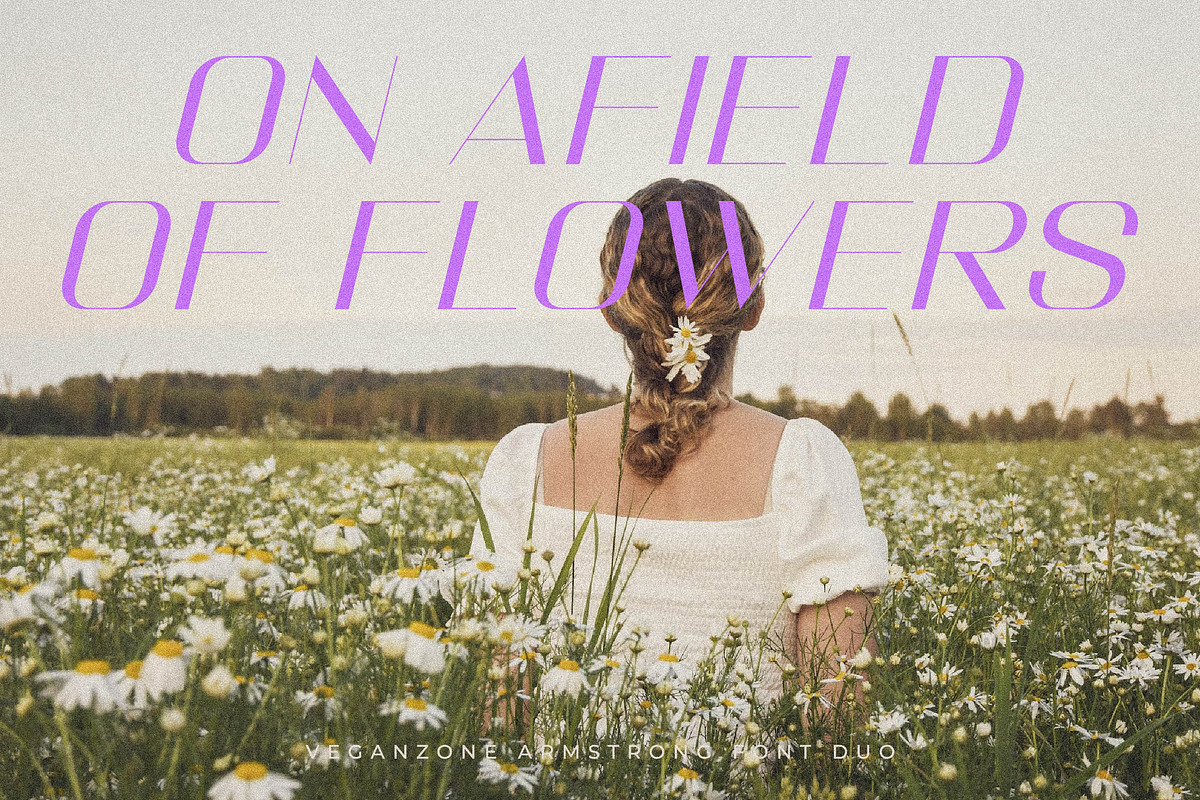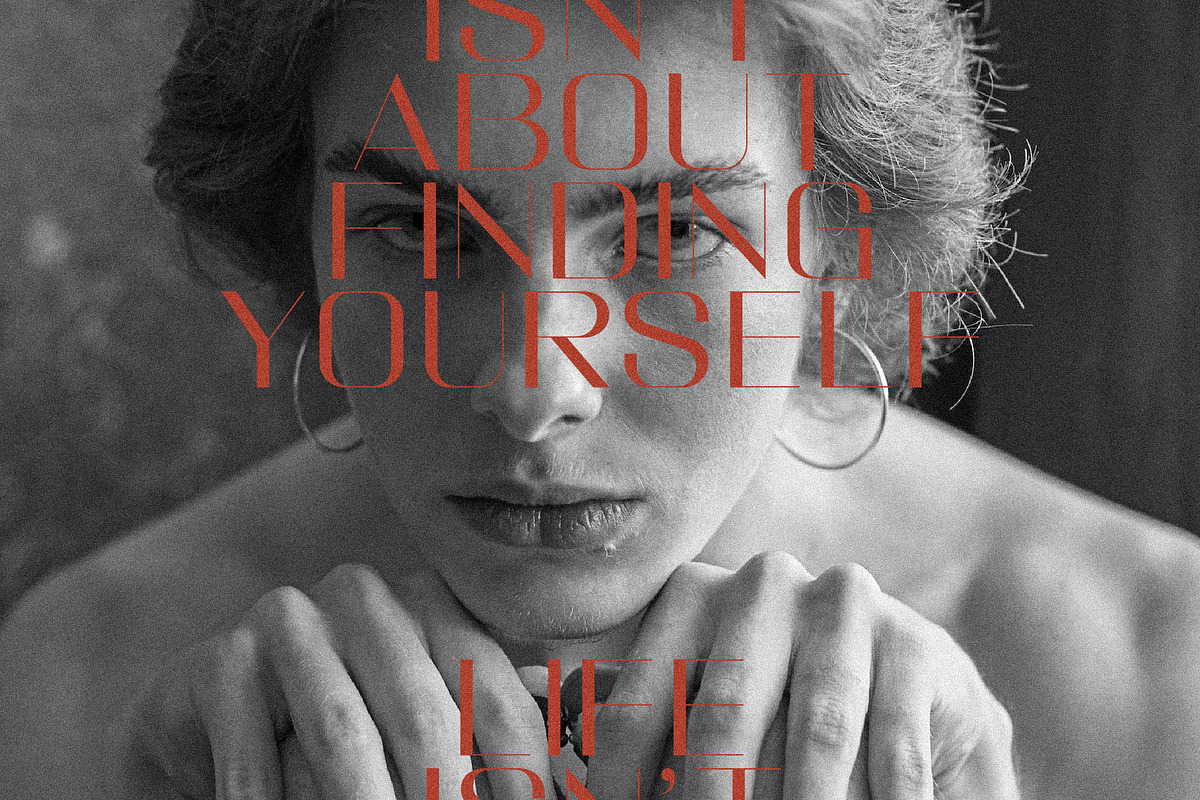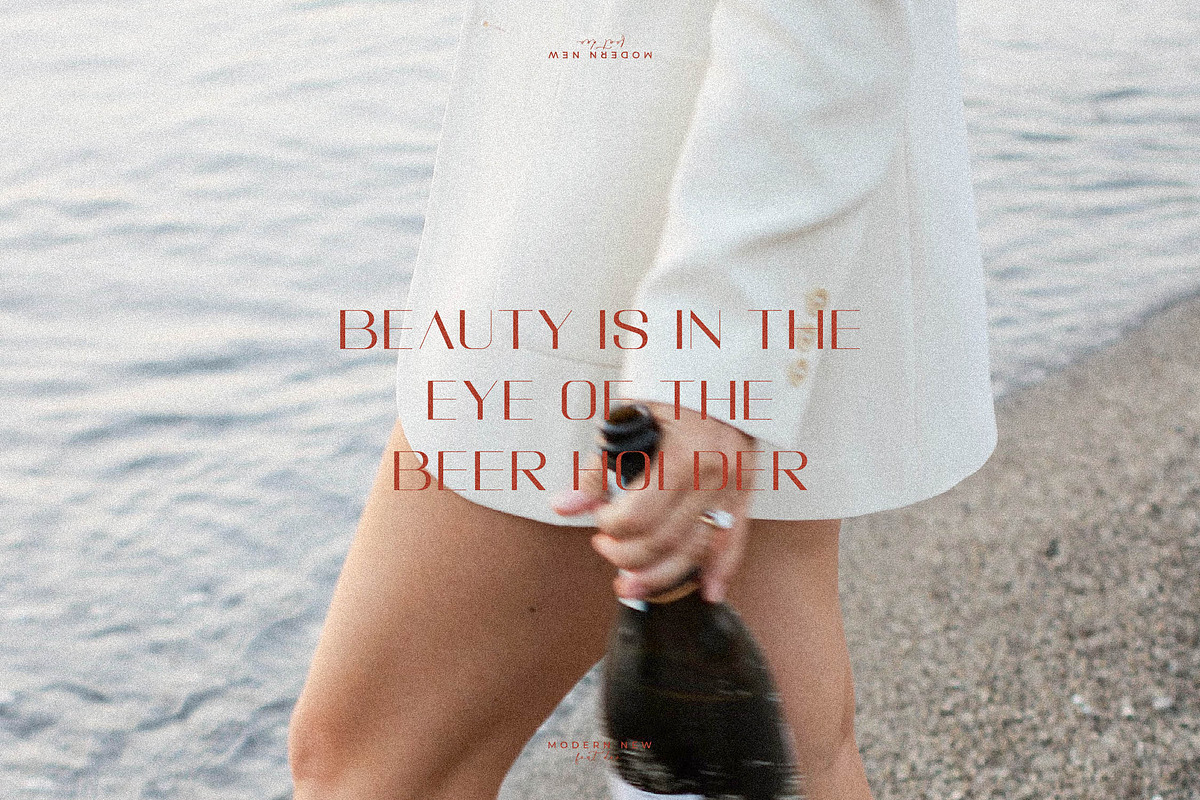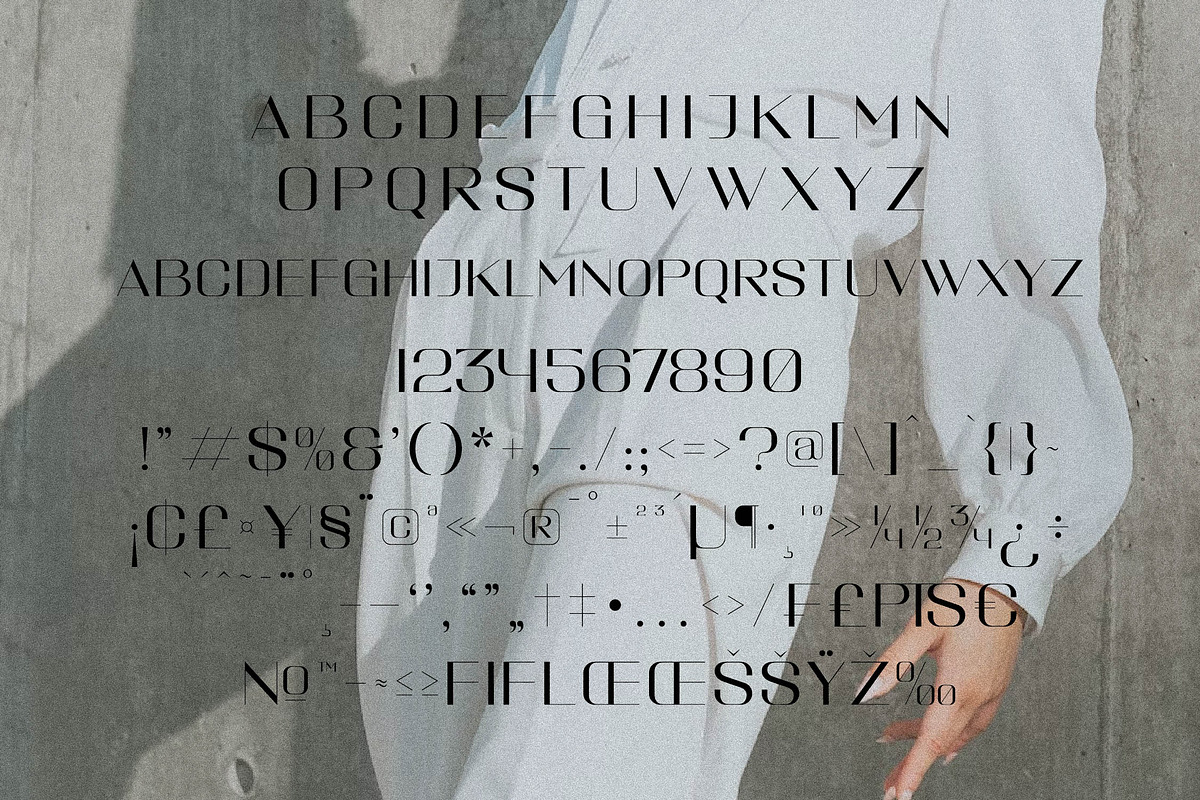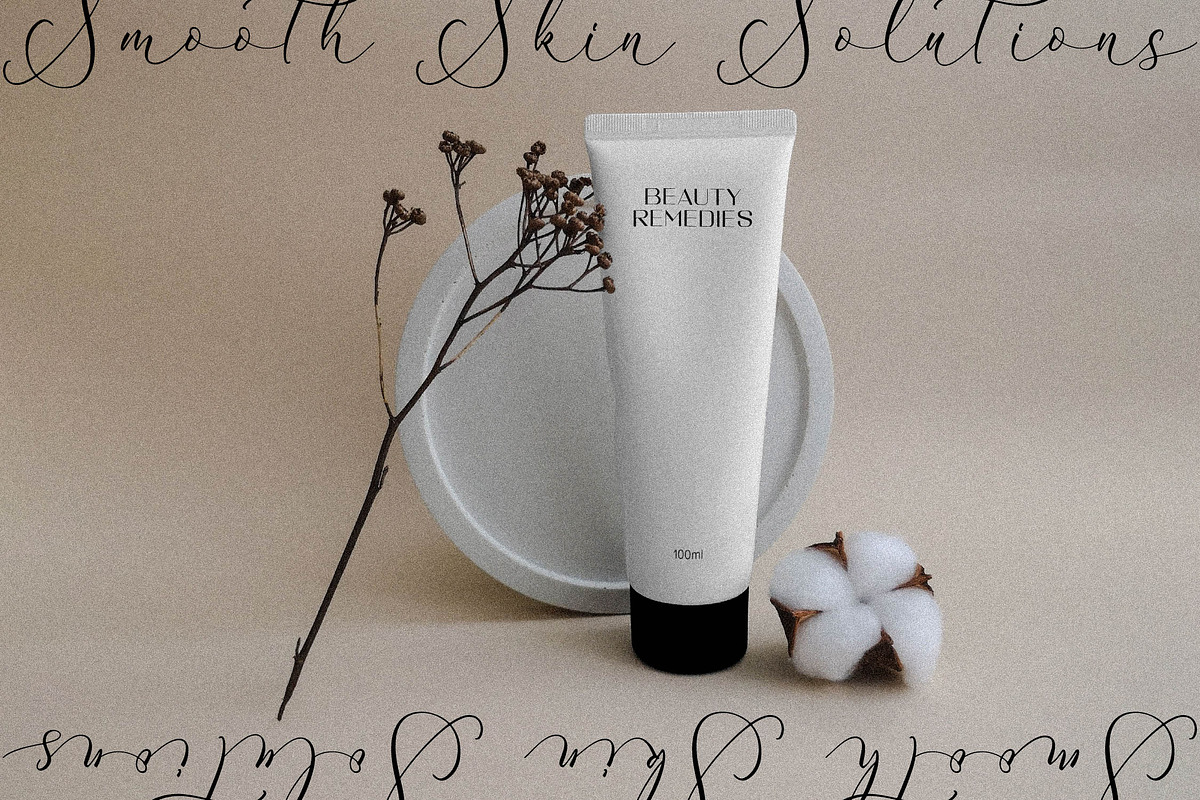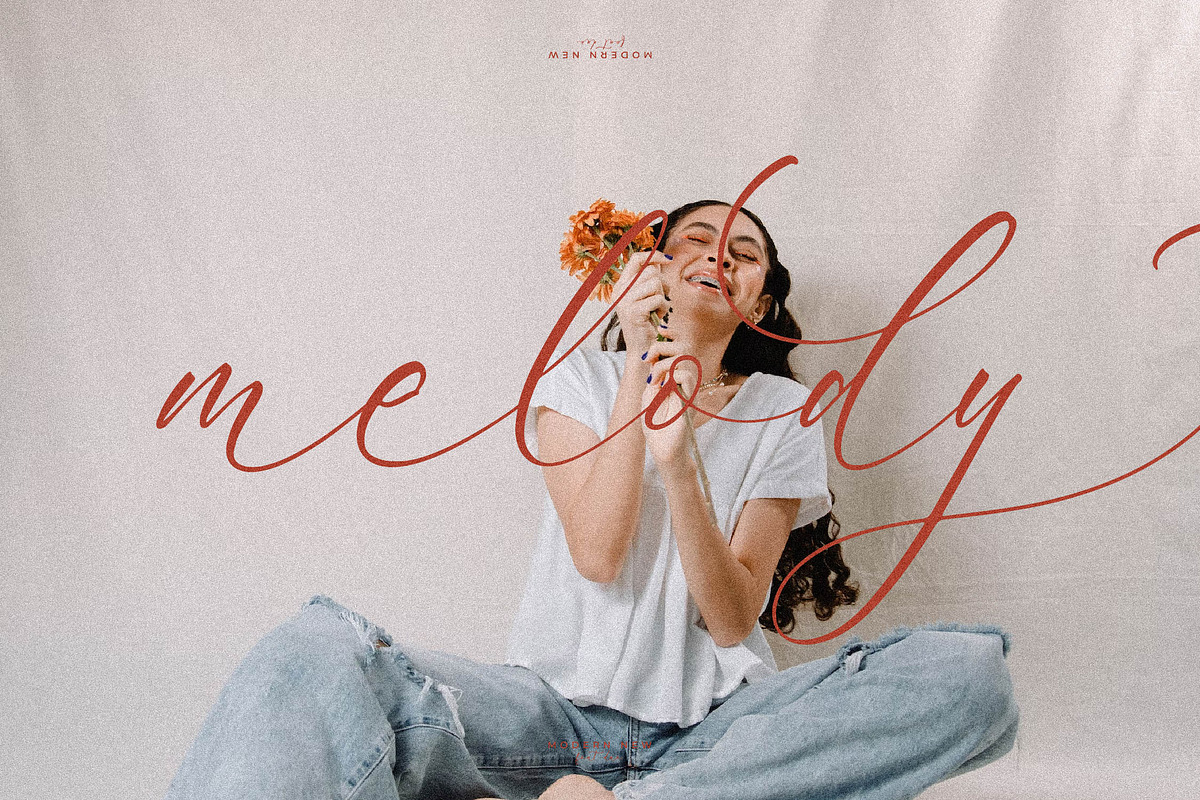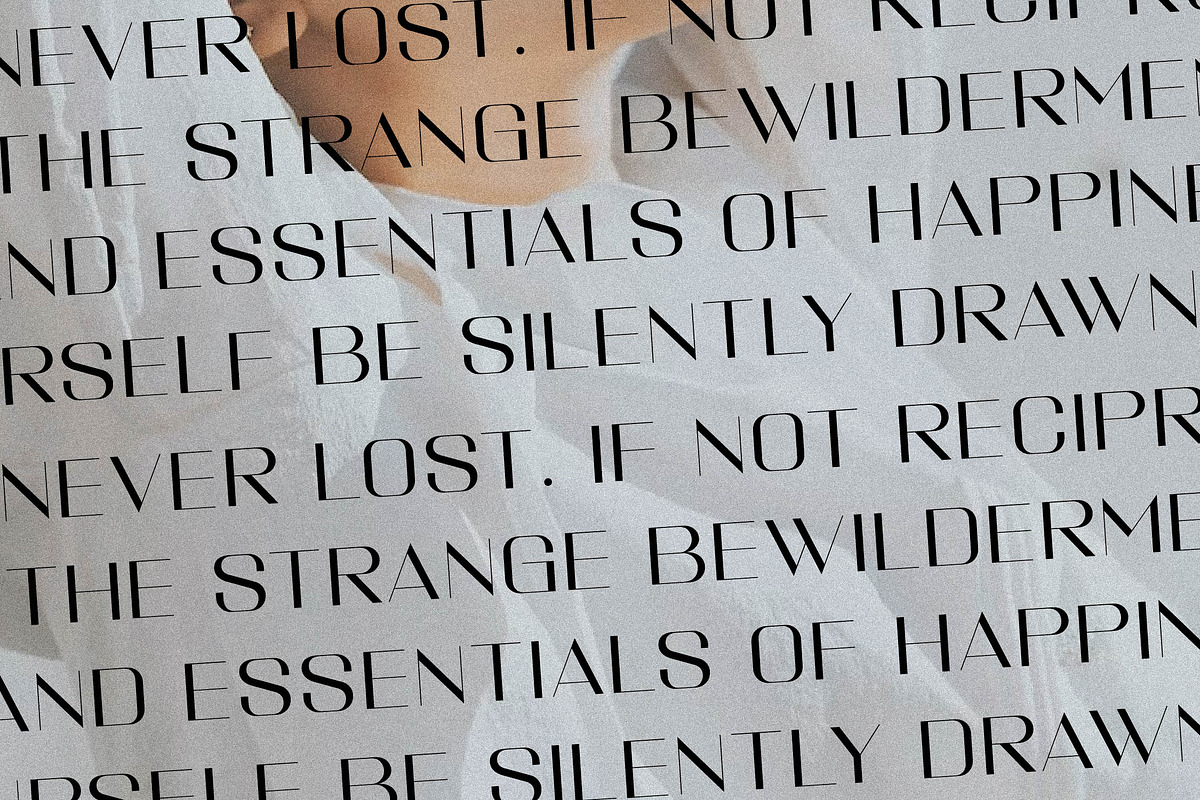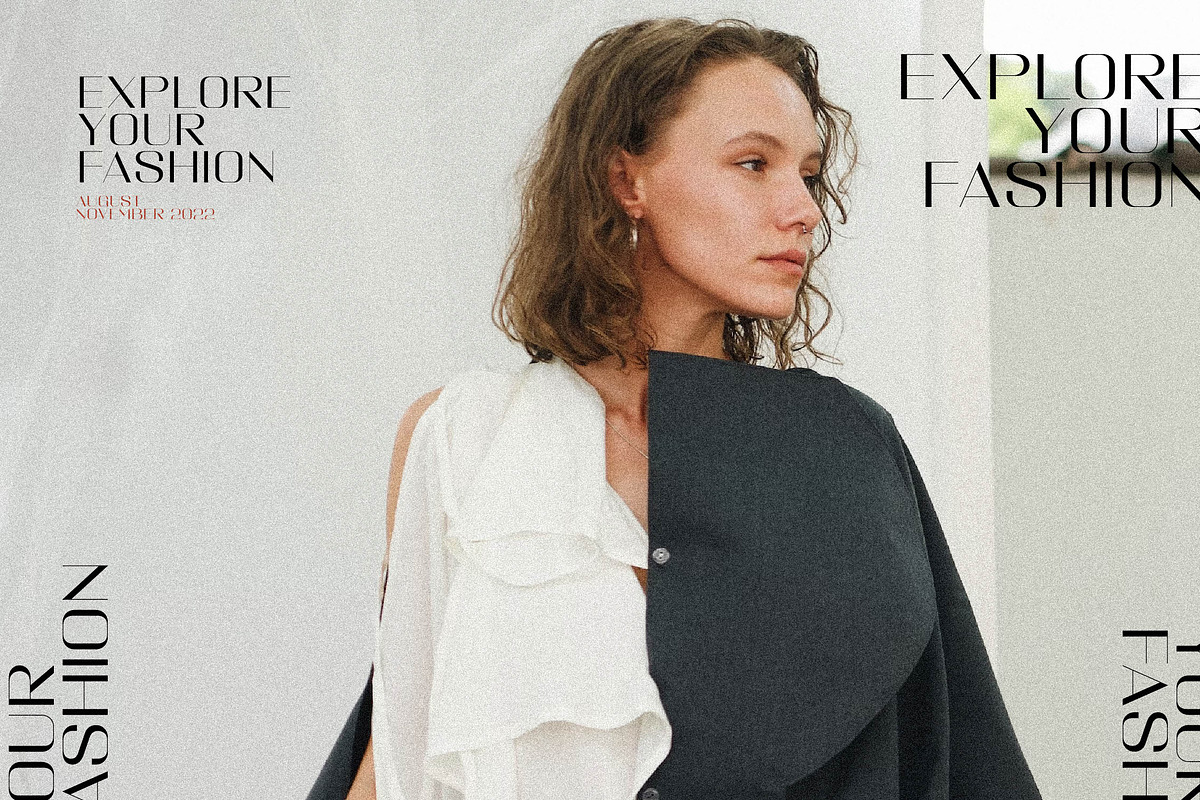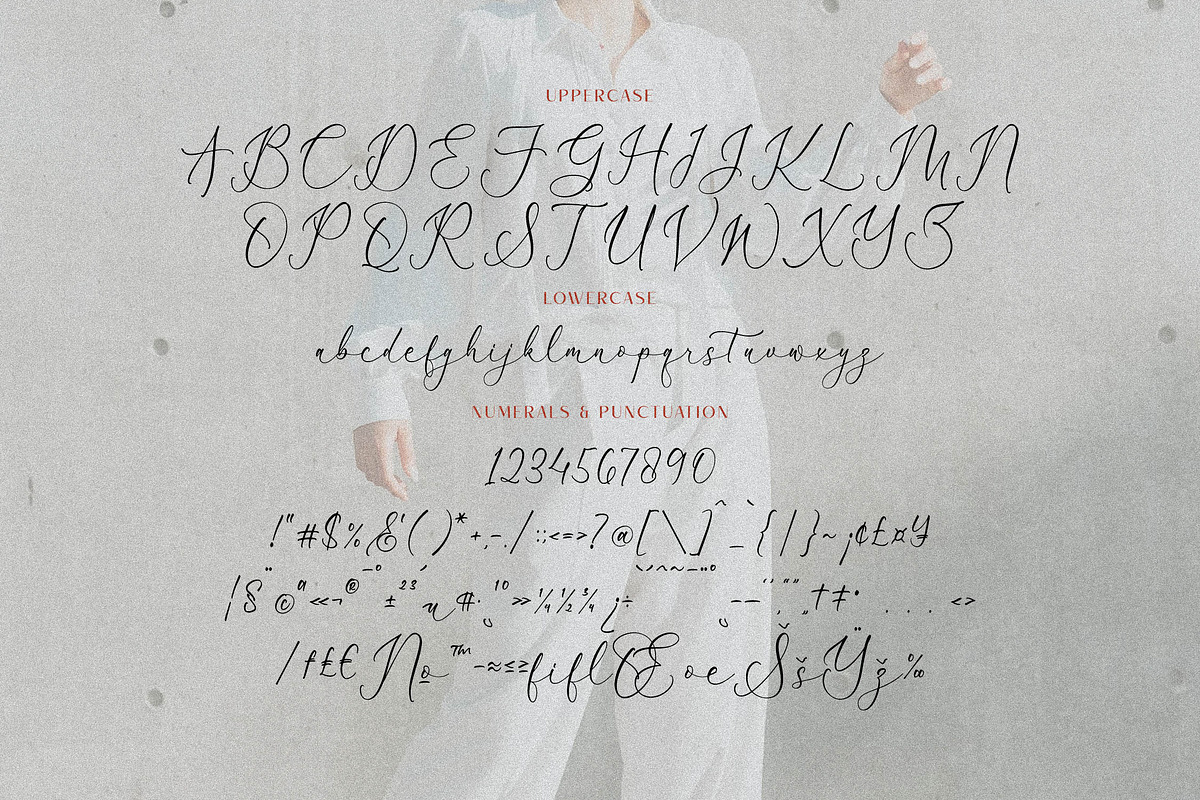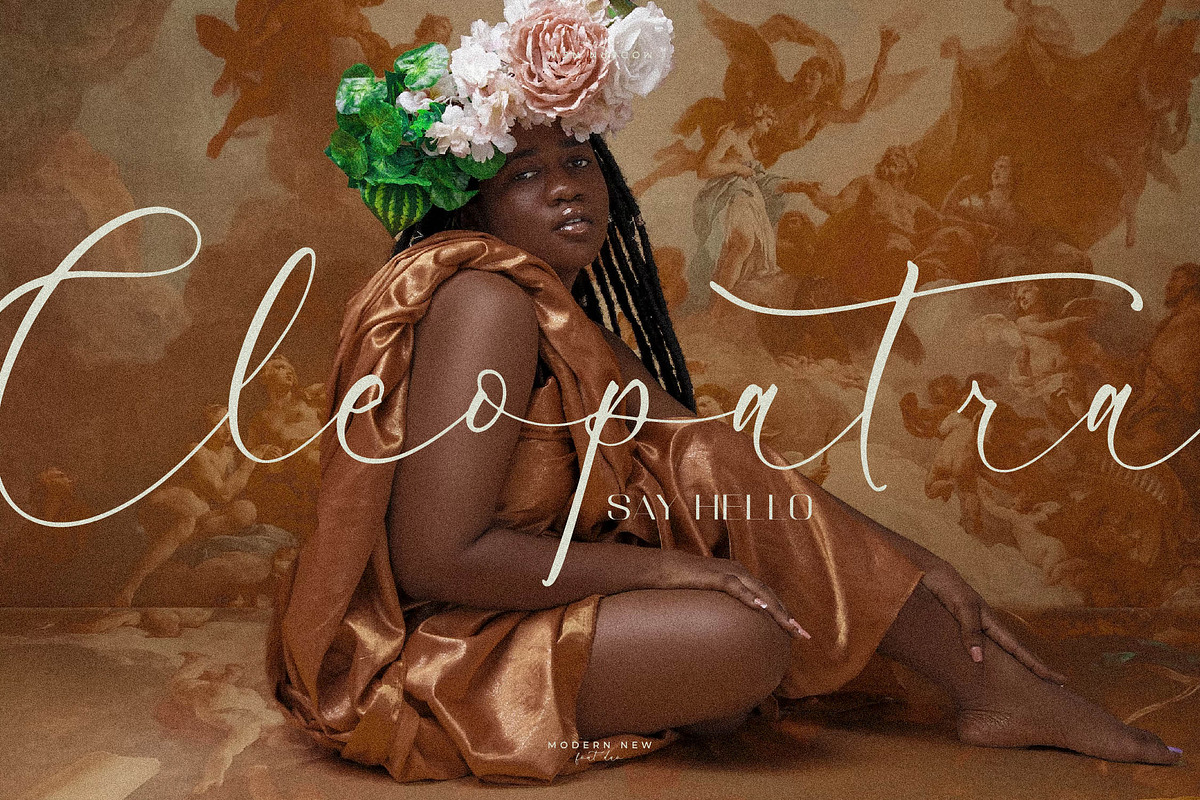
Veganzone Armstrong Modern Font Duo
Proudly present Veganzone Armstrong Font Duo , created by Storytype, A serif and script typeface that has own unique style & modern look. This typeface is perfect for an elegant & luxury logo, book or movie title design, fashion brand, magazine, clothes, lettering, quotes, and so much more.